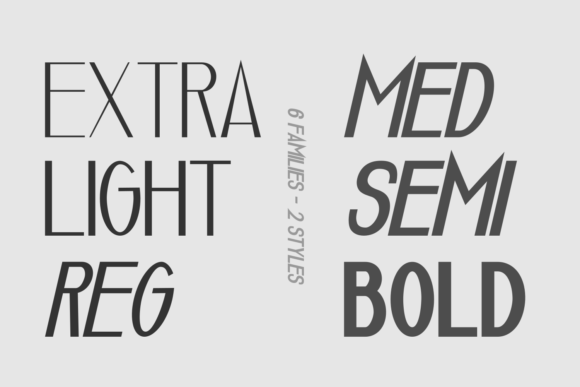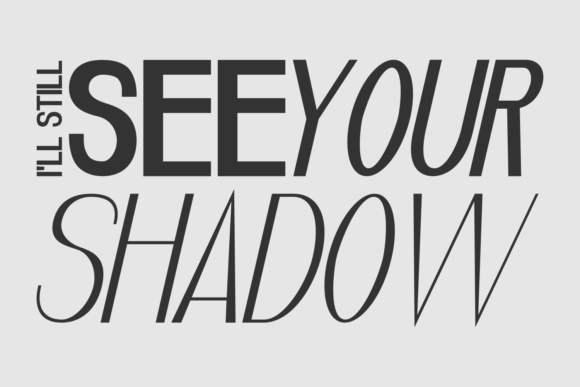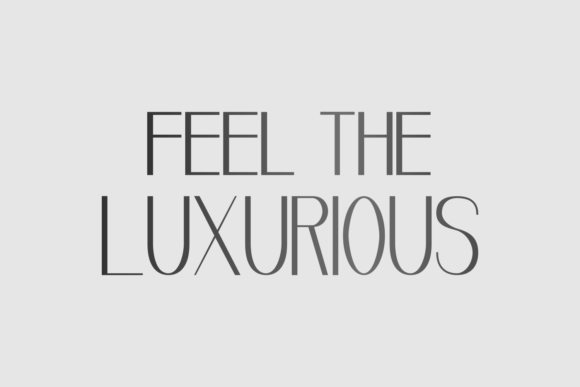
Introduction to Luxuria Font
Luxuria is an incredibly elegant and stunning sans serif font.
It will add a striking level of sophistication to any design project .
Why Choose Luxuria Font?
Luxuria Font offers exceptional quality and versatility, making it a valuable addition to your design toolkit. Whether you’re creating for personal projects or commercial use, Luxuria Font delivers professional results.